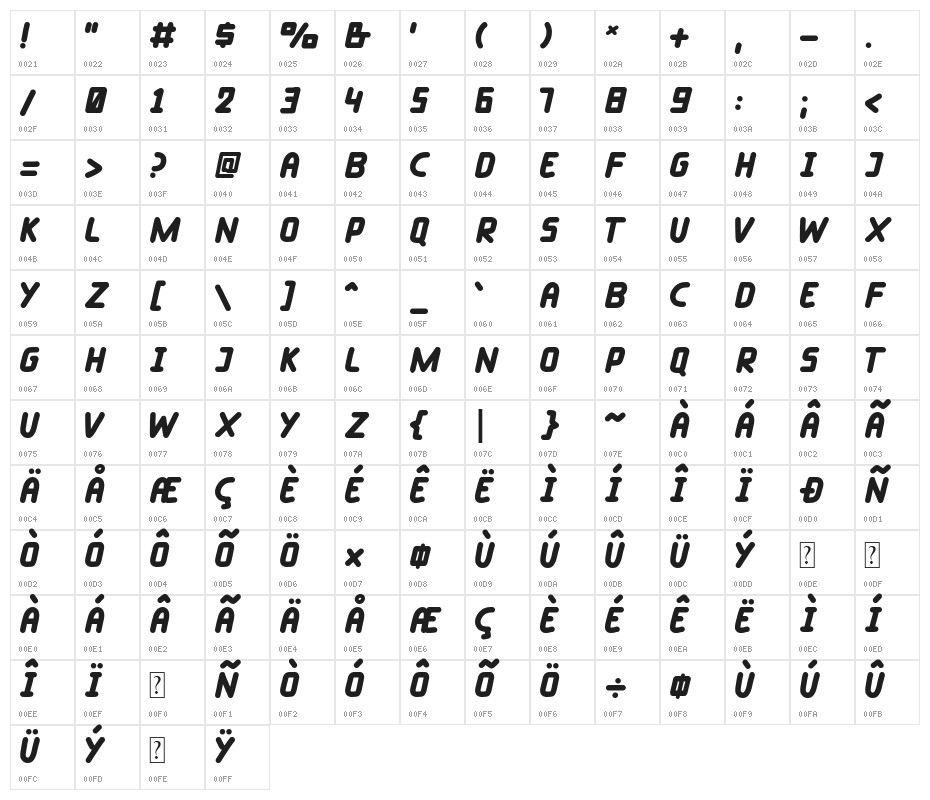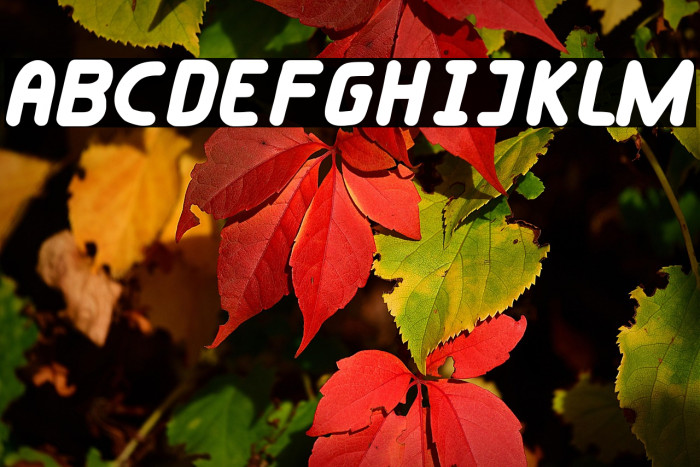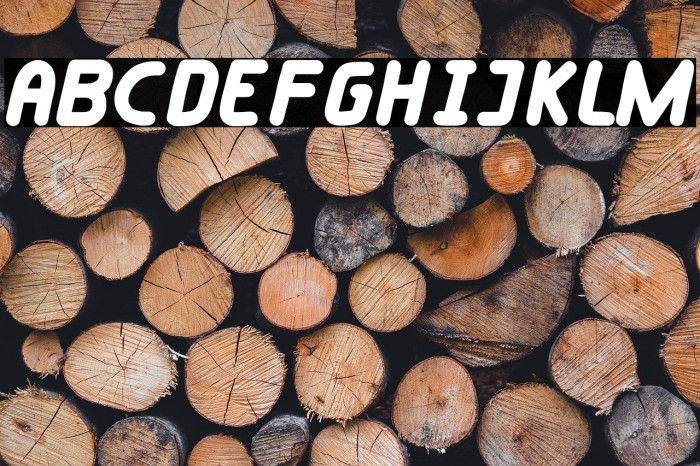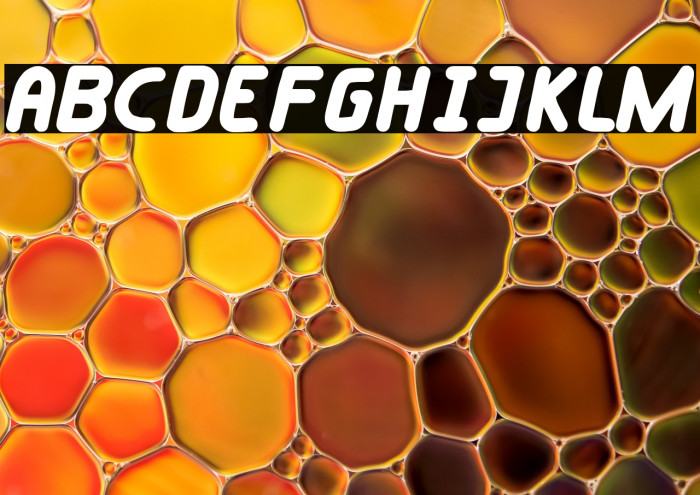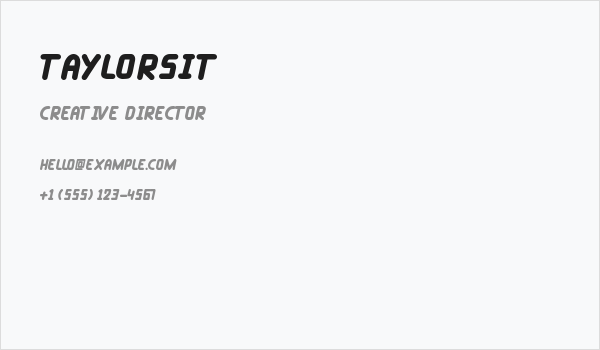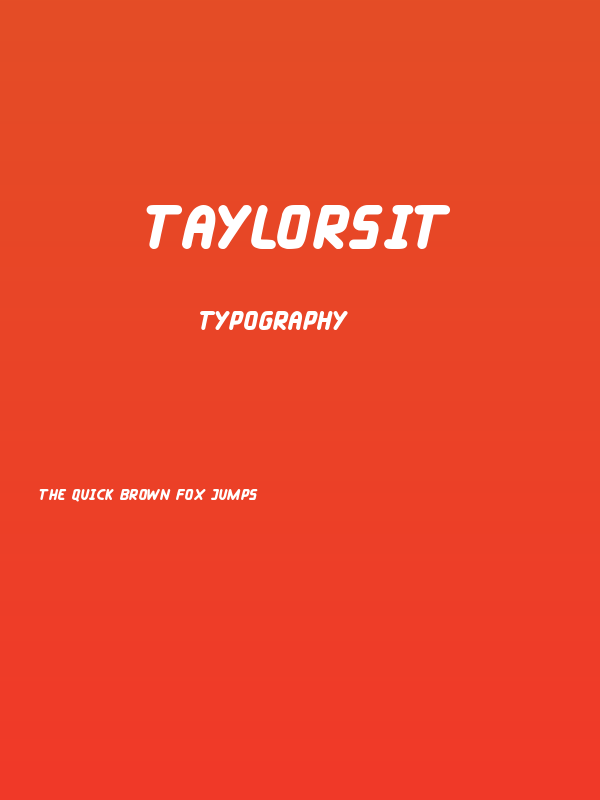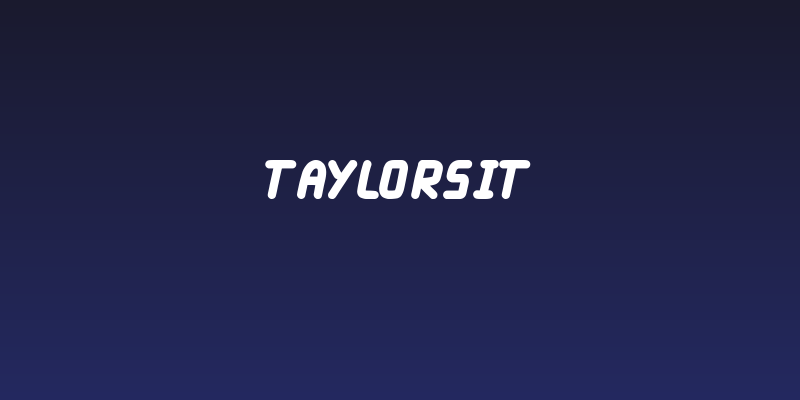
Taylorsit Font
Taylorsit Description
This font features a bold and rounded style with a modern and sporty aesthetic. The characters are slightly slanted, giving a sense of motion and energy. The uppercase and lowercase letters maintain a consistent width, contributing to a uniform appearance. The numbers and special characters are designed to match the overall style, with a focus on readability and impact. The font's smooth curves and thick strokes make it ideal for applications where a strong visual presence is required.
| Proposed Projects | Ideal for sports branding, dynamic posters, and energetic product packaging. |